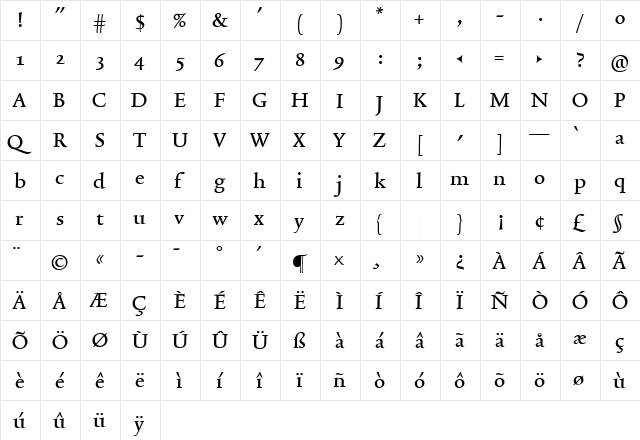
TriniteNo2 Medium
Design Context for TriniteNo2 Typeface
TriniteNo2 takes a measured approach to typography — its balanced proportions and neutral character make it a reliable workhorse for both digital and print work.